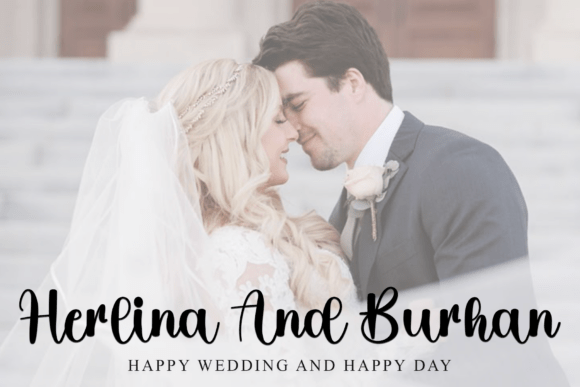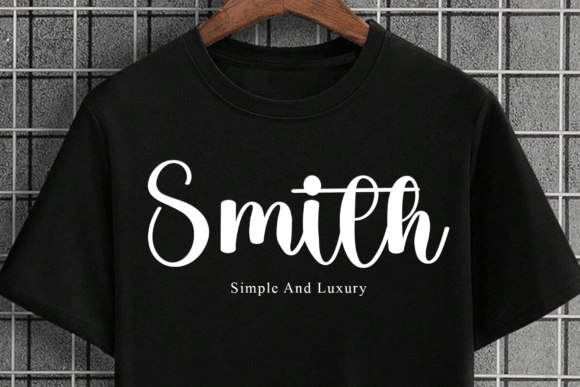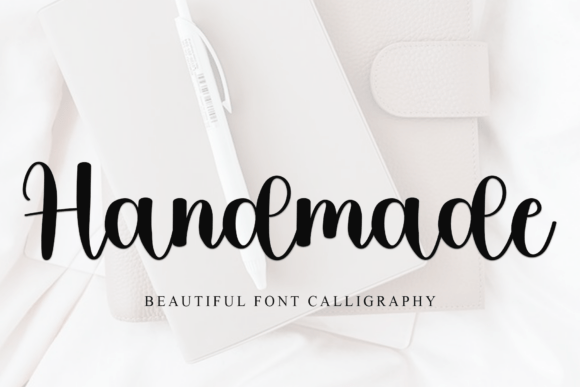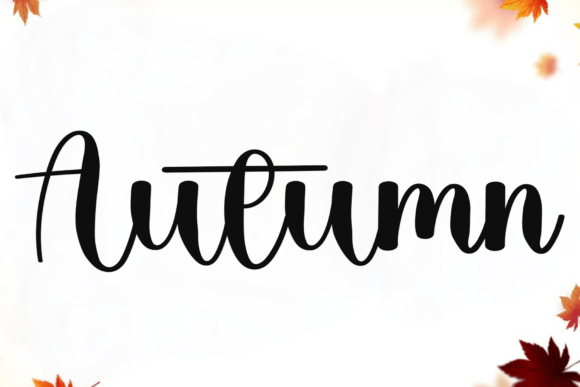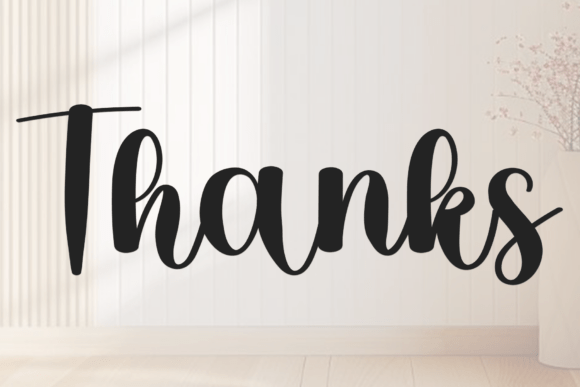
Discover the Timeless Elegance of Antique Font: A Refined Script for Sophisticated Designs
In the world of typography, few fonts capture the essence of classic beauty and modern simplicity as elegantly as Antique. This refined script font is designed to bring a sense of sophistication and charm to a wide range of creative projects, from branding and wedding invitations to packaging and social media graphics. With its smooth curves, elegant strokes, and fluid handwritten style, Antique is the perfect choice for designers and crafters looking to add a touch of timeless elegance to their work.
The Characteristics of Antique Font
Antique font is characterized by its balanced flow between each letter, giving designs a polished and natural look that feels effortlessly stylish. The font’s smooth curves and elegant strokes are reminiscent of classic calligraphy, while its clean and contemporary appeal makes it suitable for modern designs. Whether used for delicate details or bold statements, Antique brings a sense of romance and refinement to every creative project.
One of the key benefits of Antique font is its versatility. Its fluid handwritten style and elegant strokes make it perfect for a wide range of applications, including:
- Branding: Add a touch of sophistication to your brand’s identity with Antique font. Its refined and graceful style makes it perfect for logos, business cards, and letterheads.
- Wedding Invitations: Create beautiful and elegant wedding invitations with Antique font. Its classic beauty and romantic feel make it perfect for wedding stationery.
- Greeting Cards: Add a personal touch to your greeting cards with Antique font. Its fluid handwritten style makes it perfect for birthday cards, thank-you cards, and more.
- Packaging: Elevate your packaging designs with Antique font. Its clean and contemporary appeal makes it perfect for product labels, packaging inserts, and more.
- Social Media Graphics: Create stunning social media graphics with Antique font. Its elegant strokes and smooth curves make it perfect for quotes, inspirational messages, and more.
PUA-Encoded for Effortless Access
Antique font is also PUA-encoded, ensuring effortless access to all glyphs, swashes, and alternate characters. This means that designers and crafters can easily access a wide range of characters and features, making it easier to create unique and creative designs.
Why Choose Antique Font?
So why choose Antique font for your next design project? Here are just a few reasons:
- Timeless Elegance: Antique font captures the essence of classic beauty and modern simplicity, making it perfect for designers and crafters looking to add a touch of timeless elegance to their work.
- Versatility: Antique font is versatile and can be used for a wide range of applications, from branding and wedding invitations to packaging and social media graphics.
- Effortless Access: Antique font is PUA-encoded, ensuring effortless access to all glyphs, swashes, and alternate characters.
- Sophistication: Antique font brings a sense of sophistication and charm to every design, making it perfect for projects that demand both elegance and clarity.
In conclusion, Antique font is a refined and elegant script font that is perfect for designers and crafters looking to add a touch of timeless elegance to their work. With its smooth curves, elegant strokes, and fluid handwritten style, Antique brings a sense of sophistication and charm to every design. Whether used for branding, wedding invitations, packaging, or social media graphics, Antique font is the perfect choice for projects that demand both elegance and clarity. So why wait? Discover the timeless elegance of Antique font today and turn simplicity into sophistication.